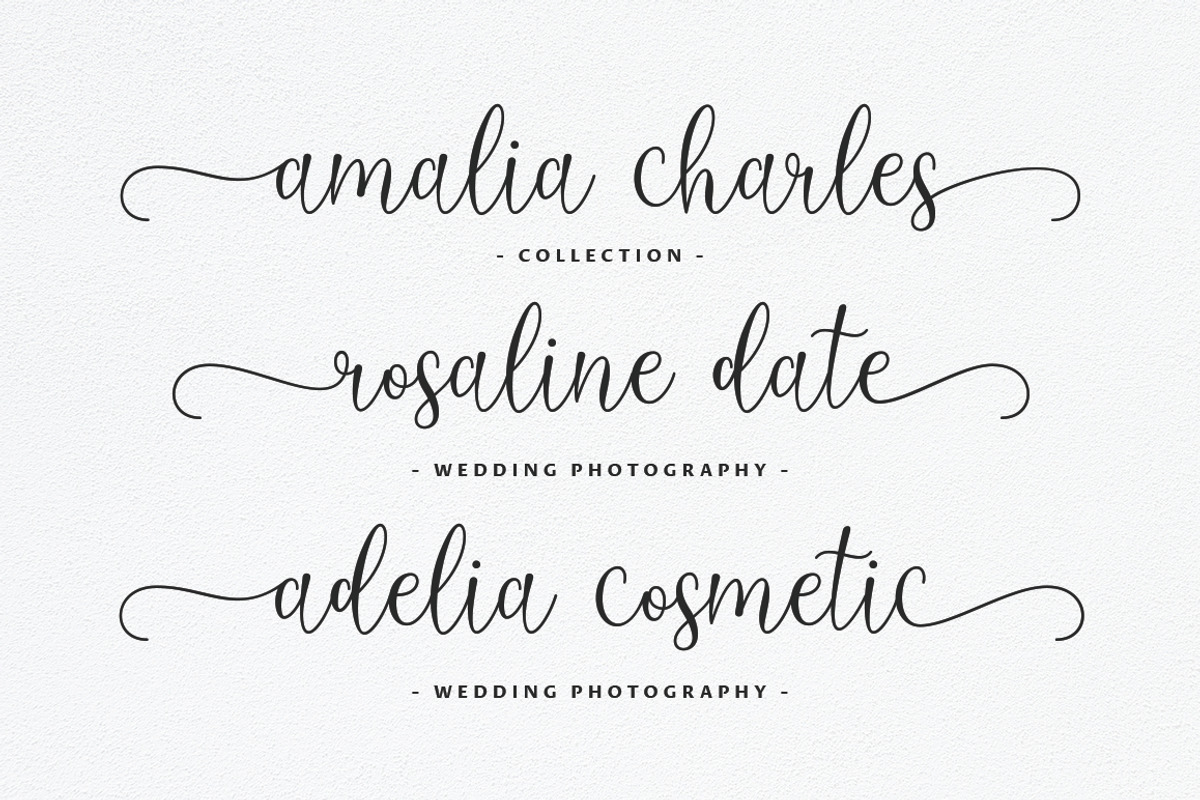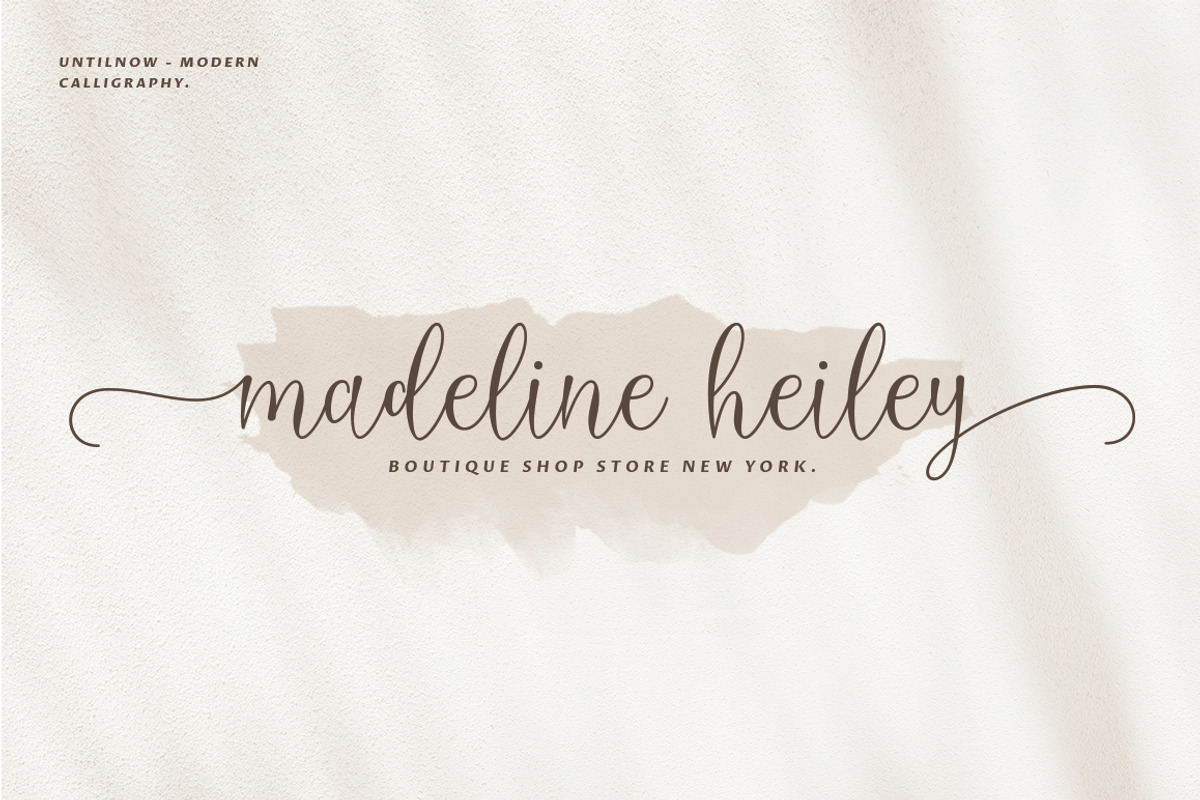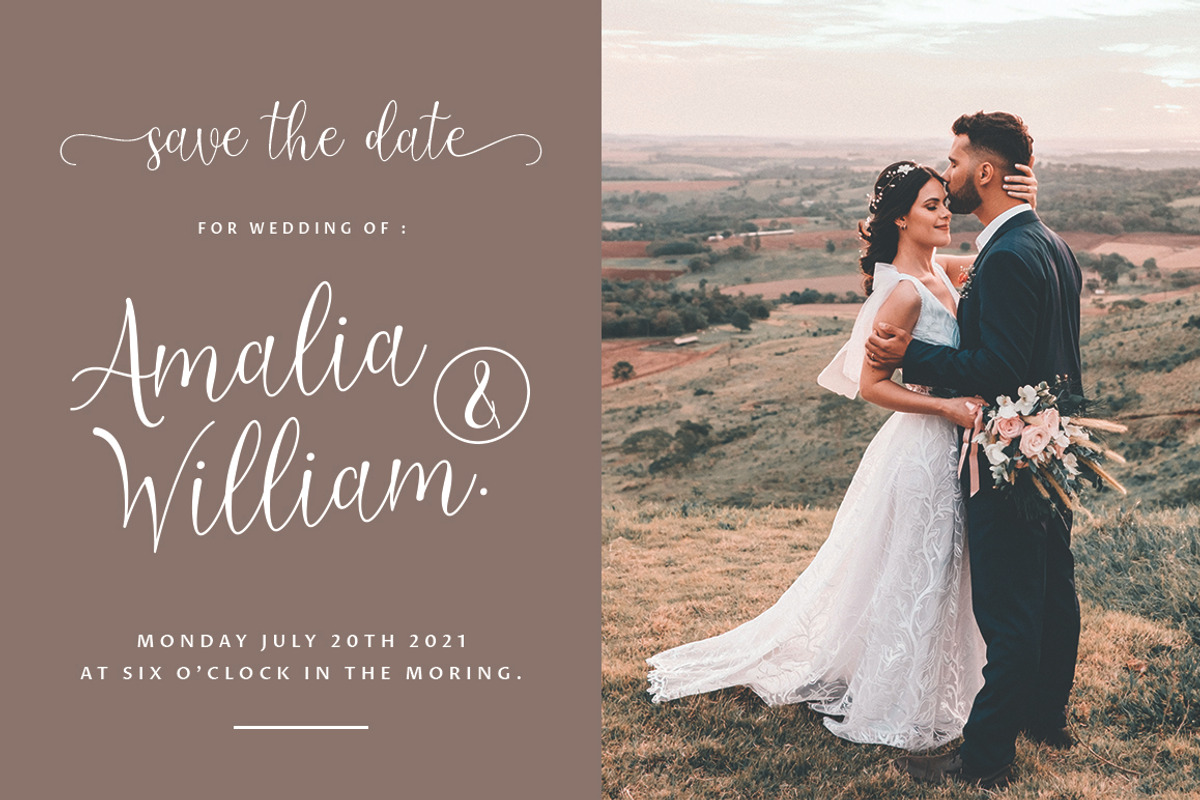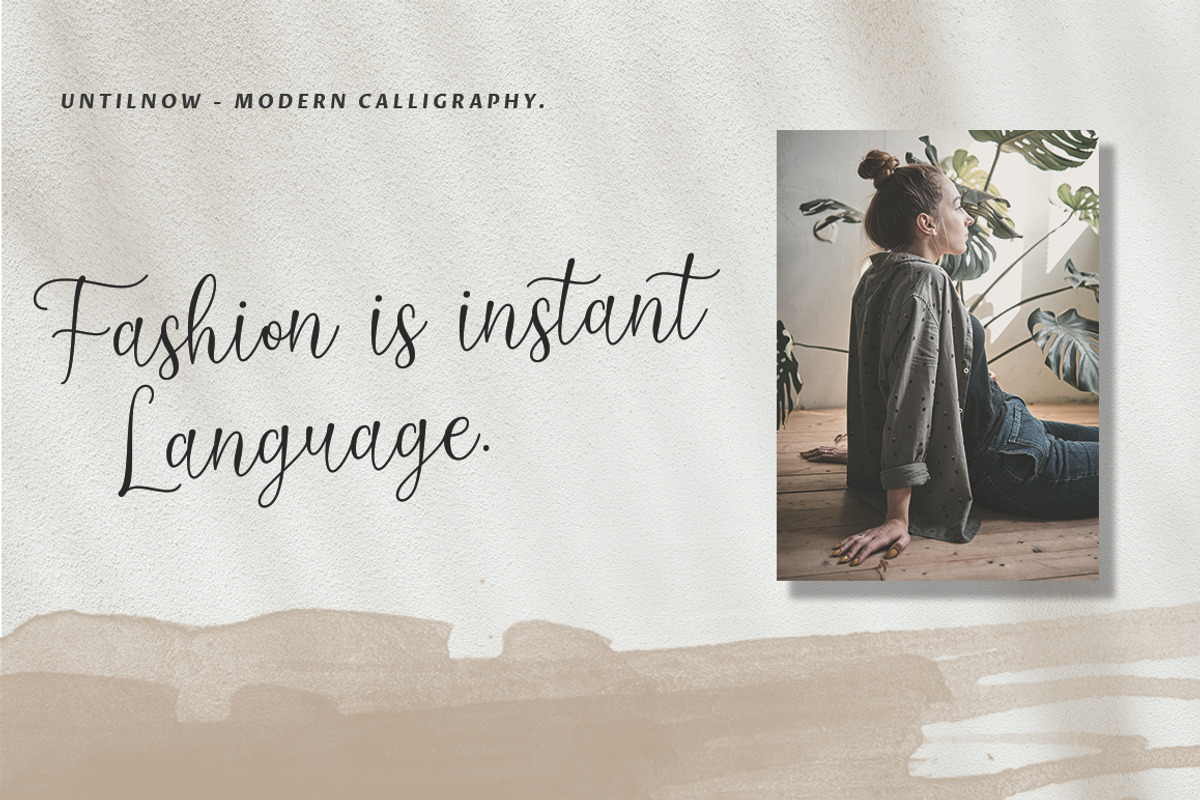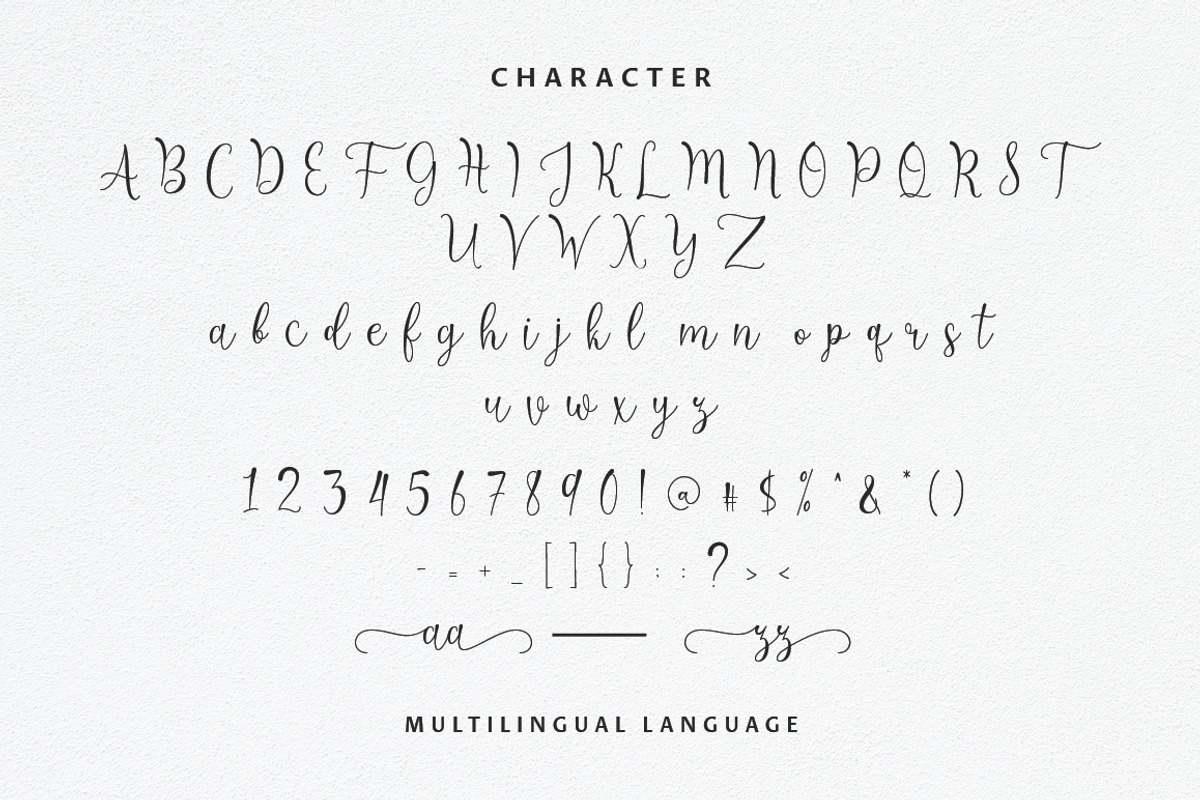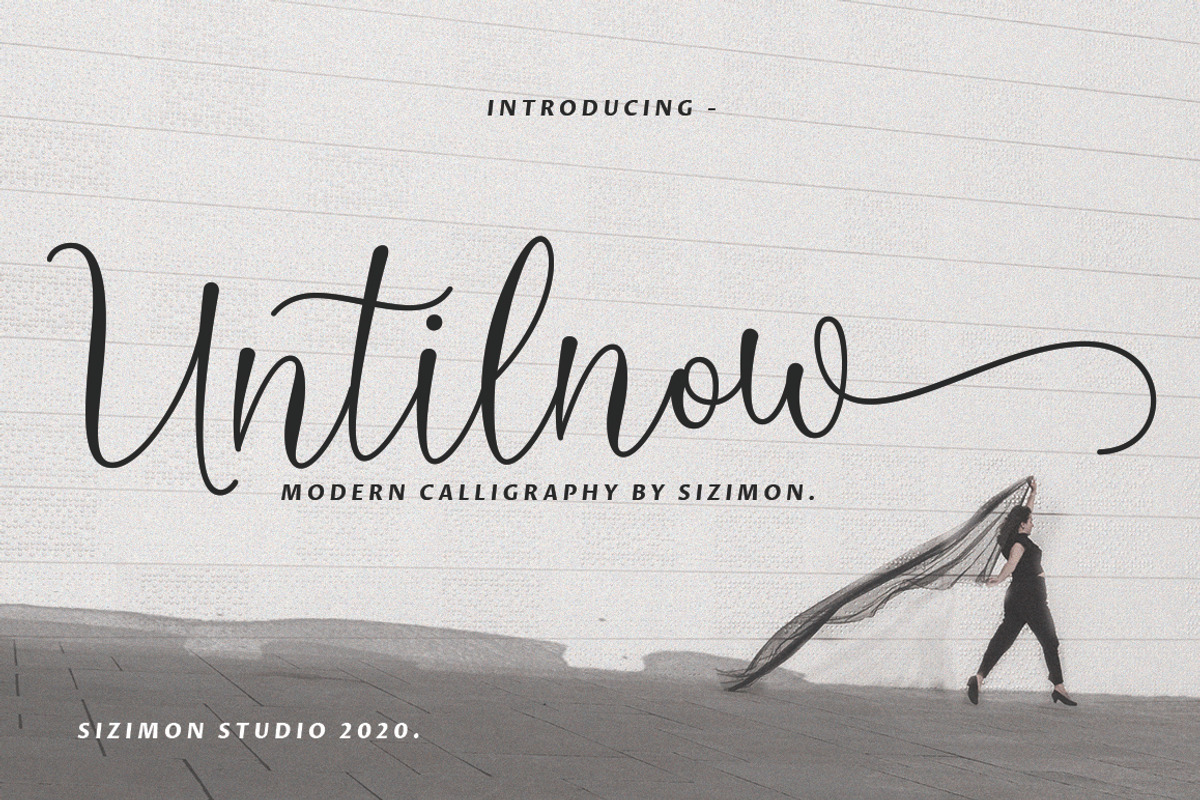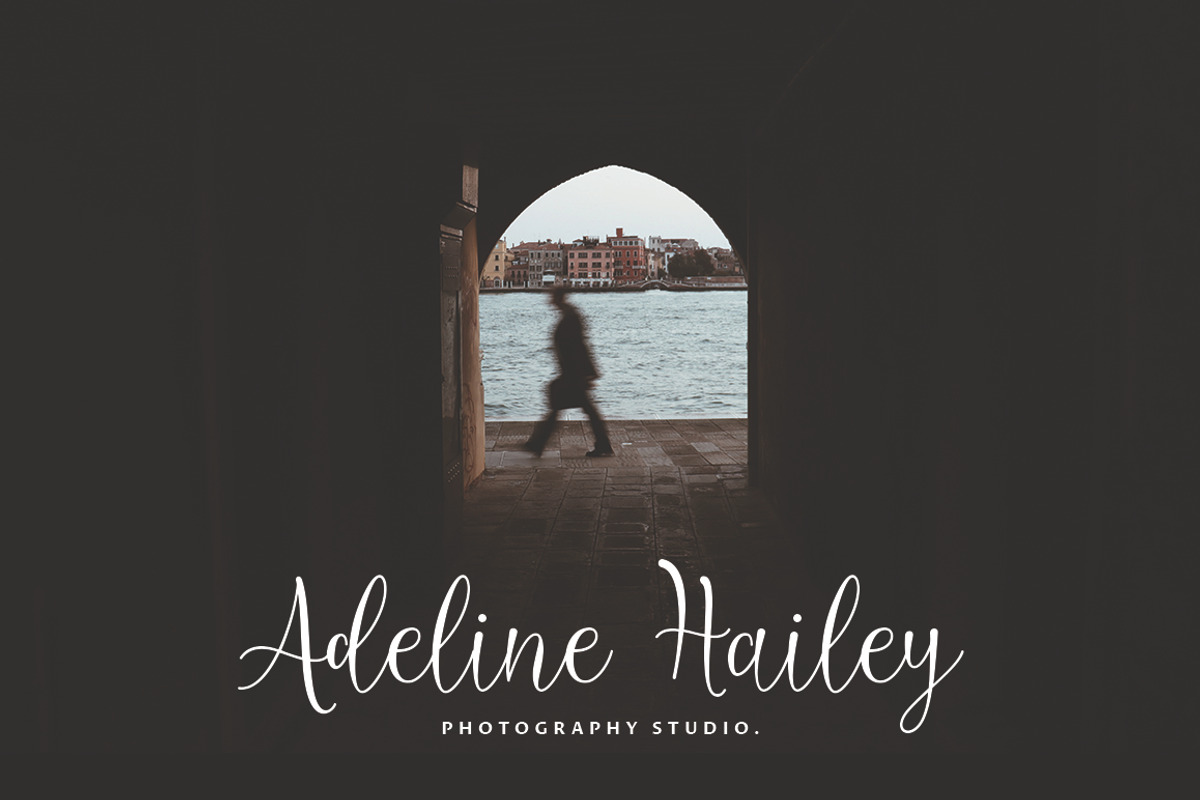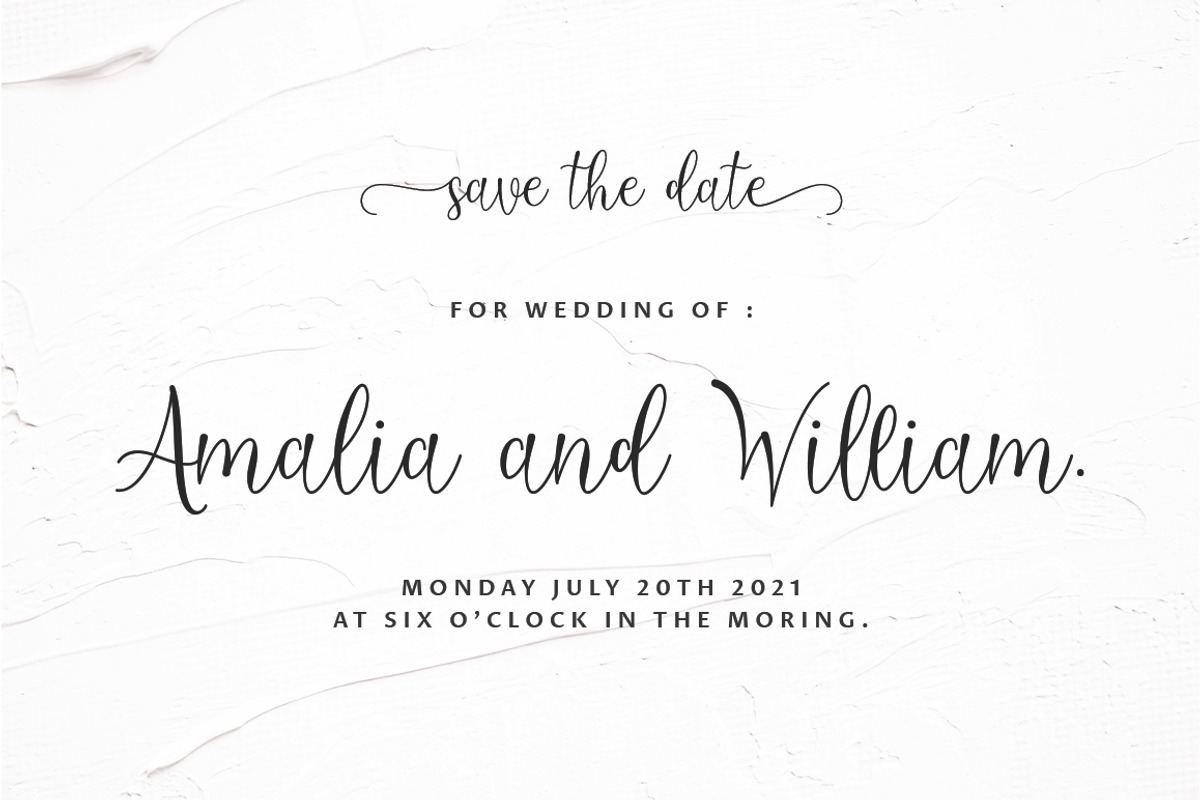
Untilnow Script Modern Calligraphy
Introducing our latest product Untilnow Script Connecting script, designed to convey elegance and style. It is slender, feminine and friendly. Untilnow is perfect for fashion, e-commerce brands, trend blogs, or any business that wants to appear classy and chic.
- Uppercase, lowercase, numeral, punctuation & Symbol
- Stylistic alternates (lowercase and uppercase)